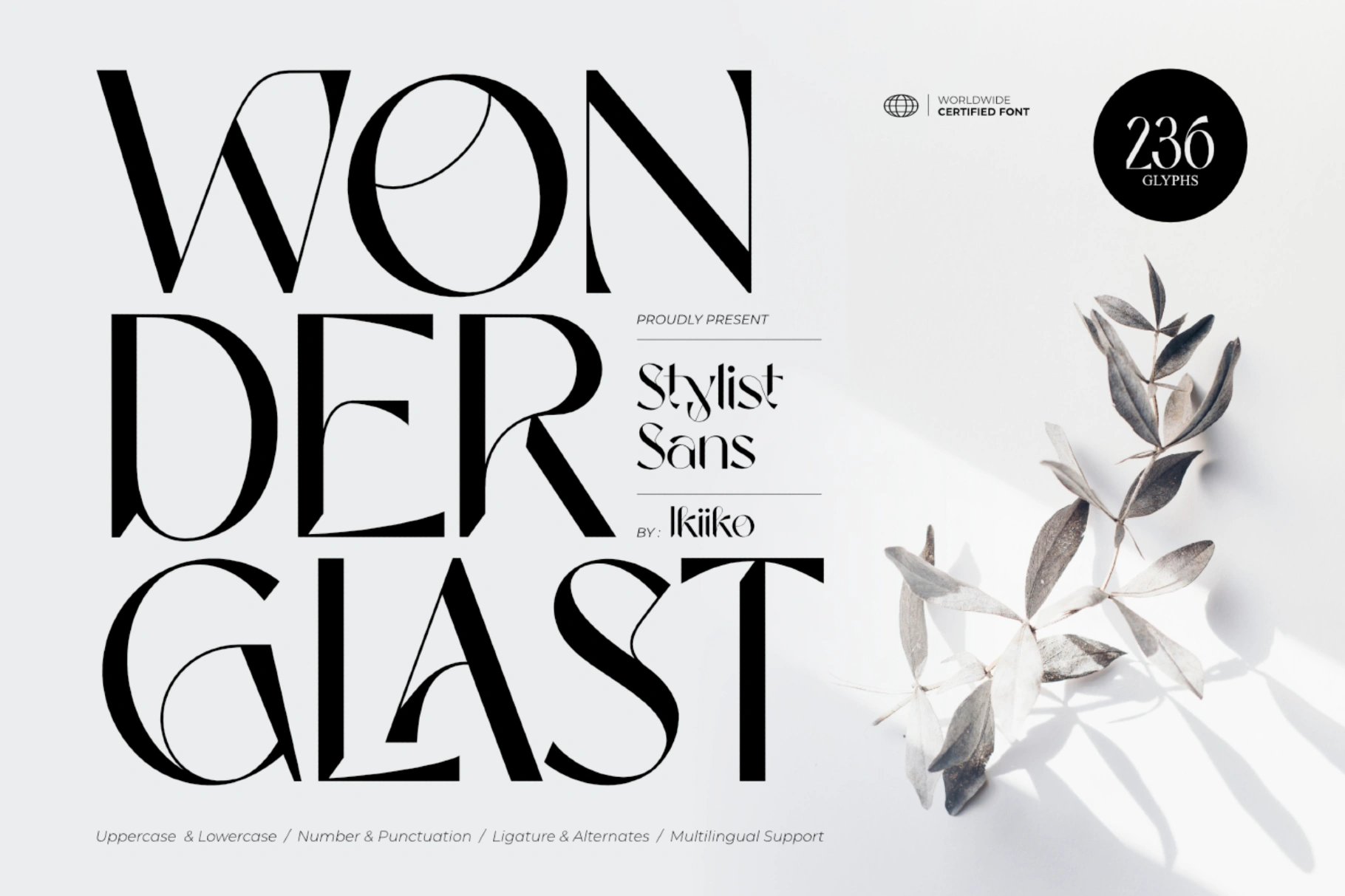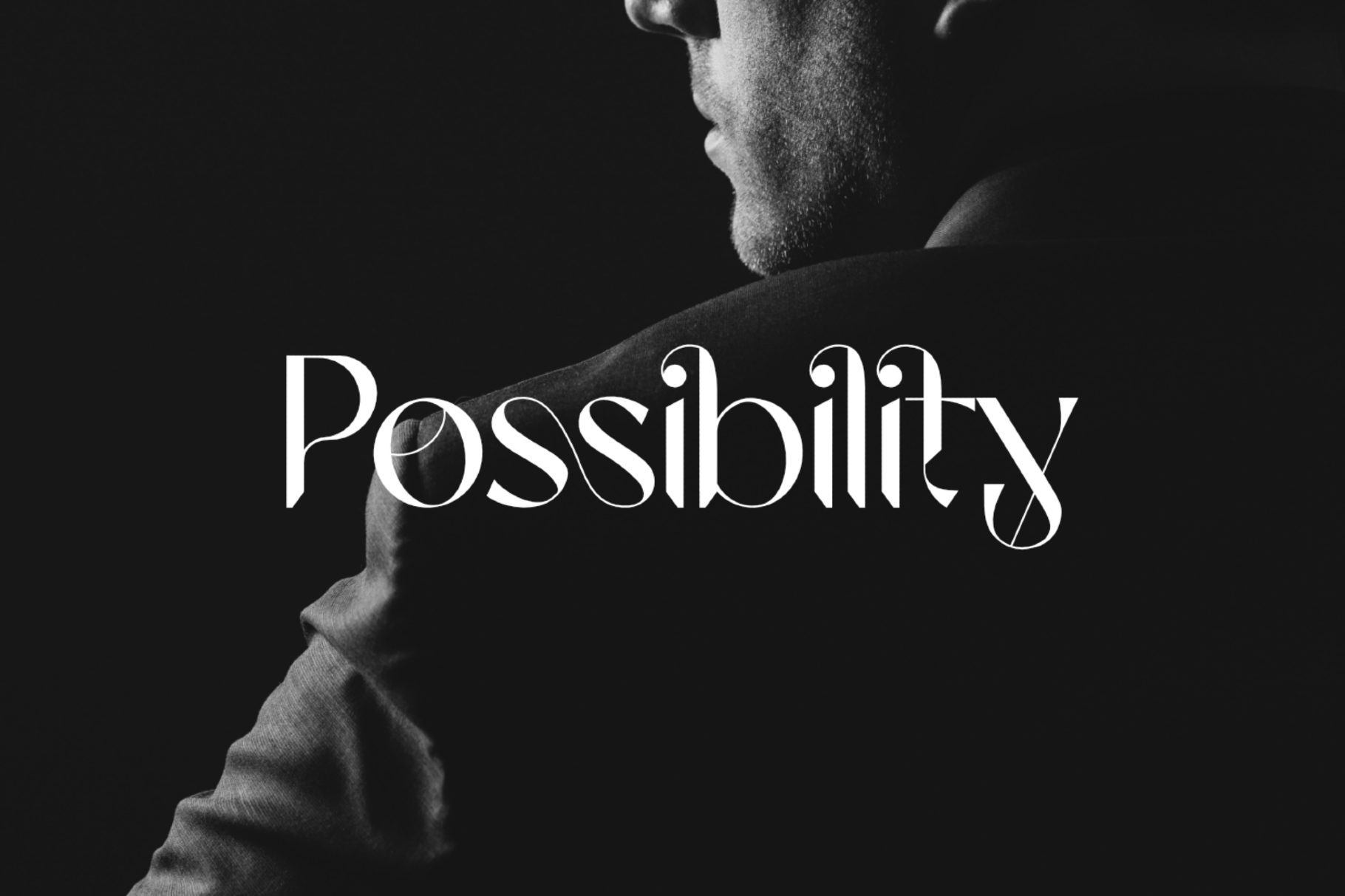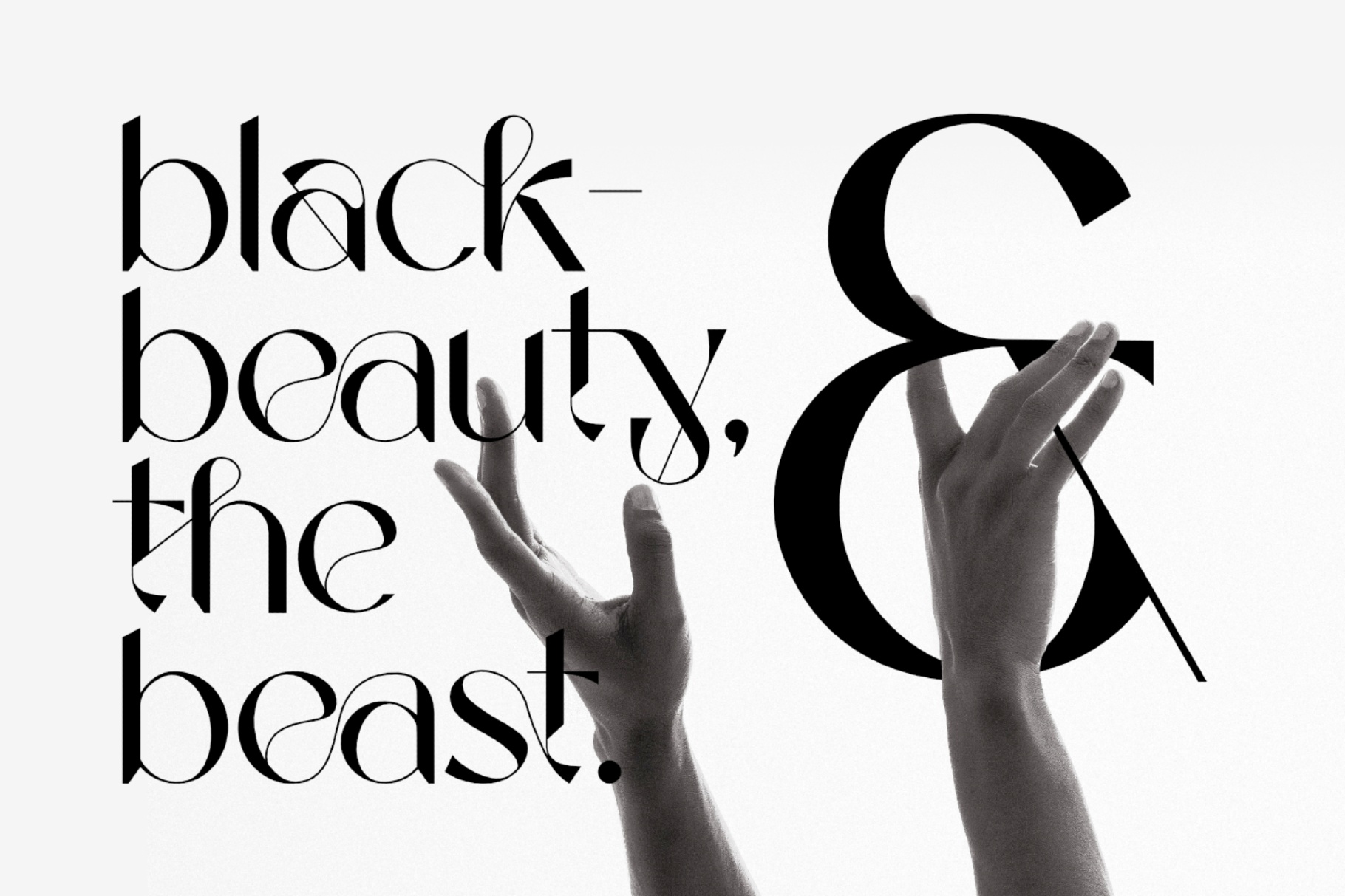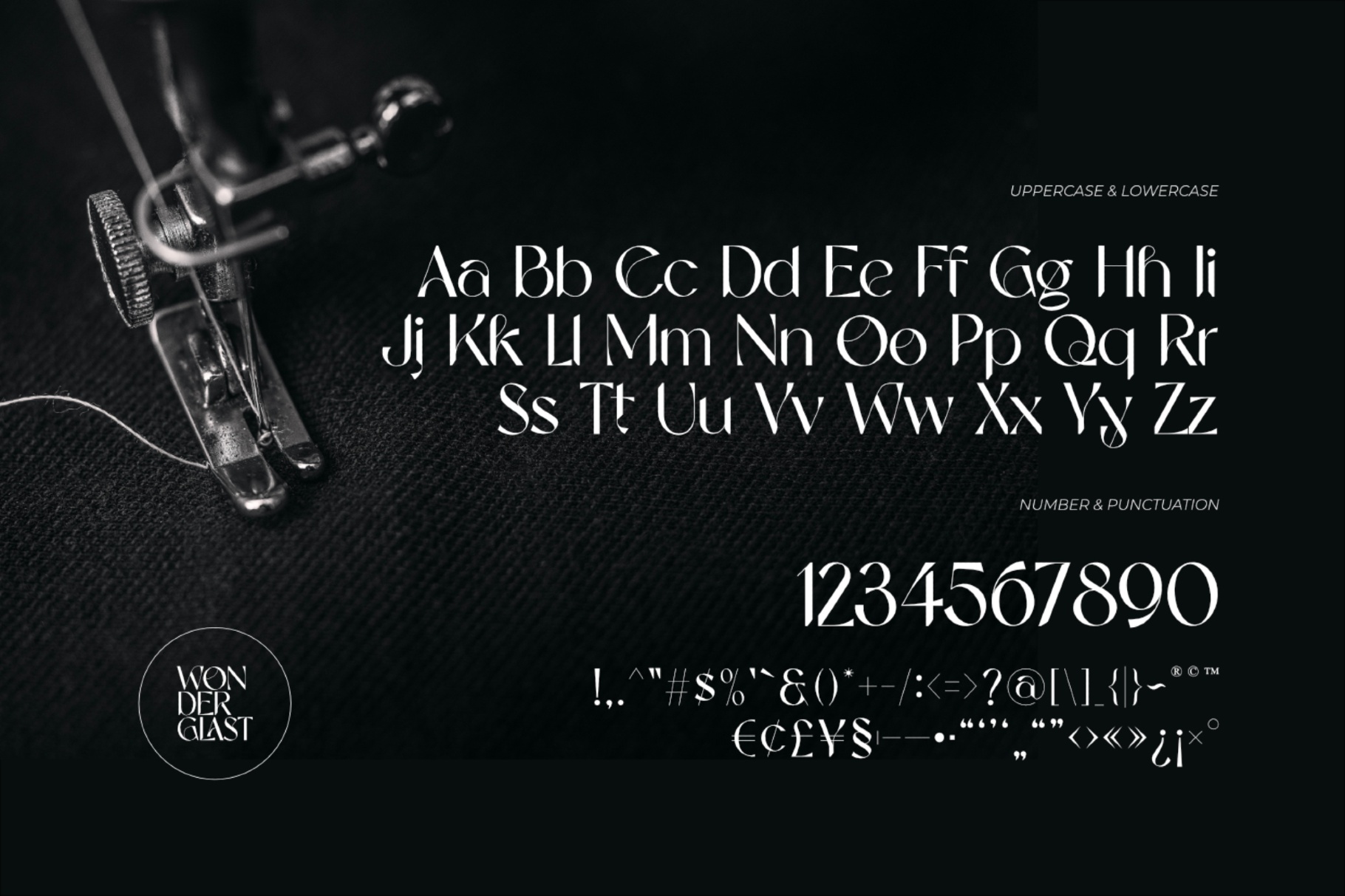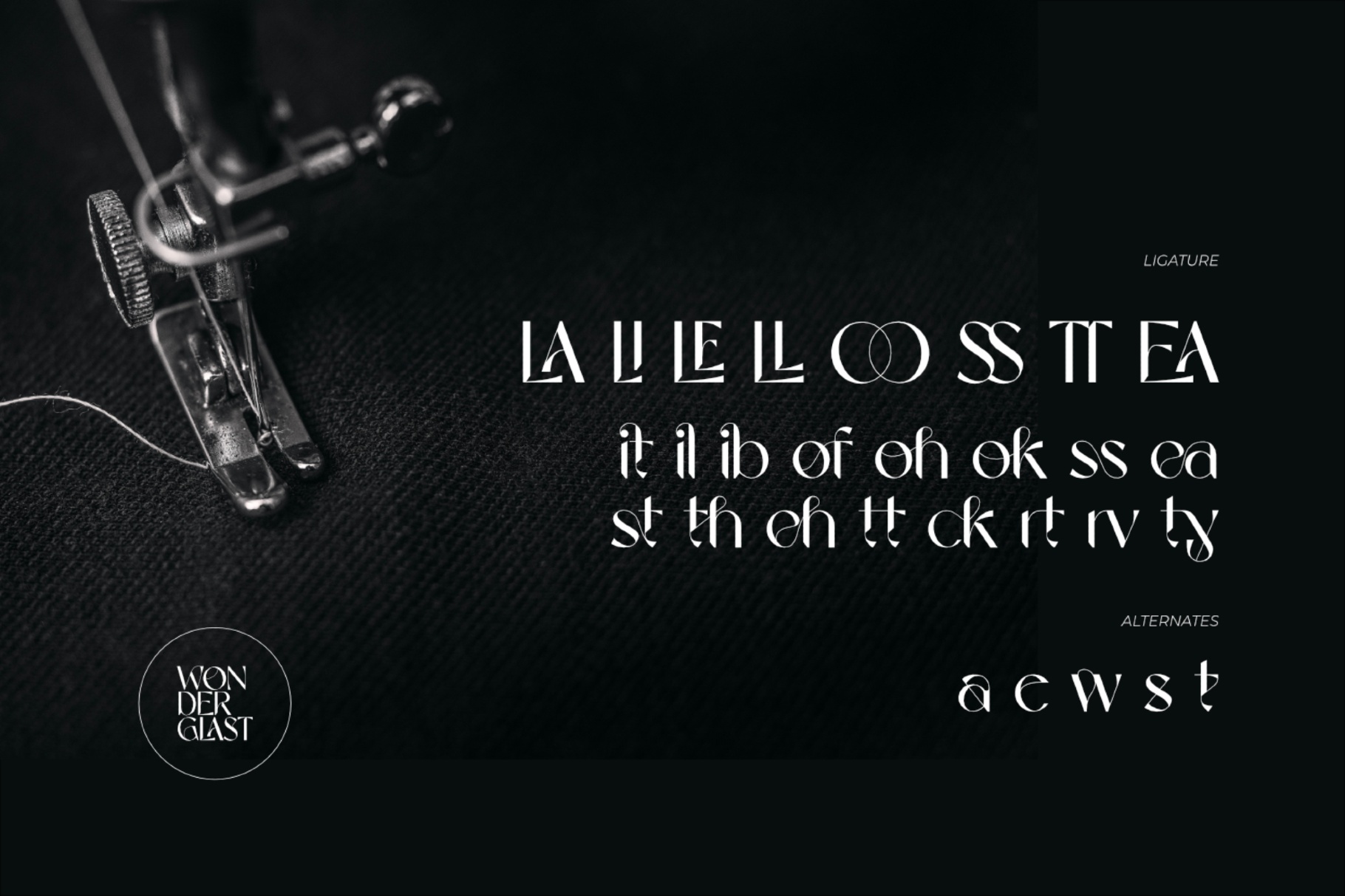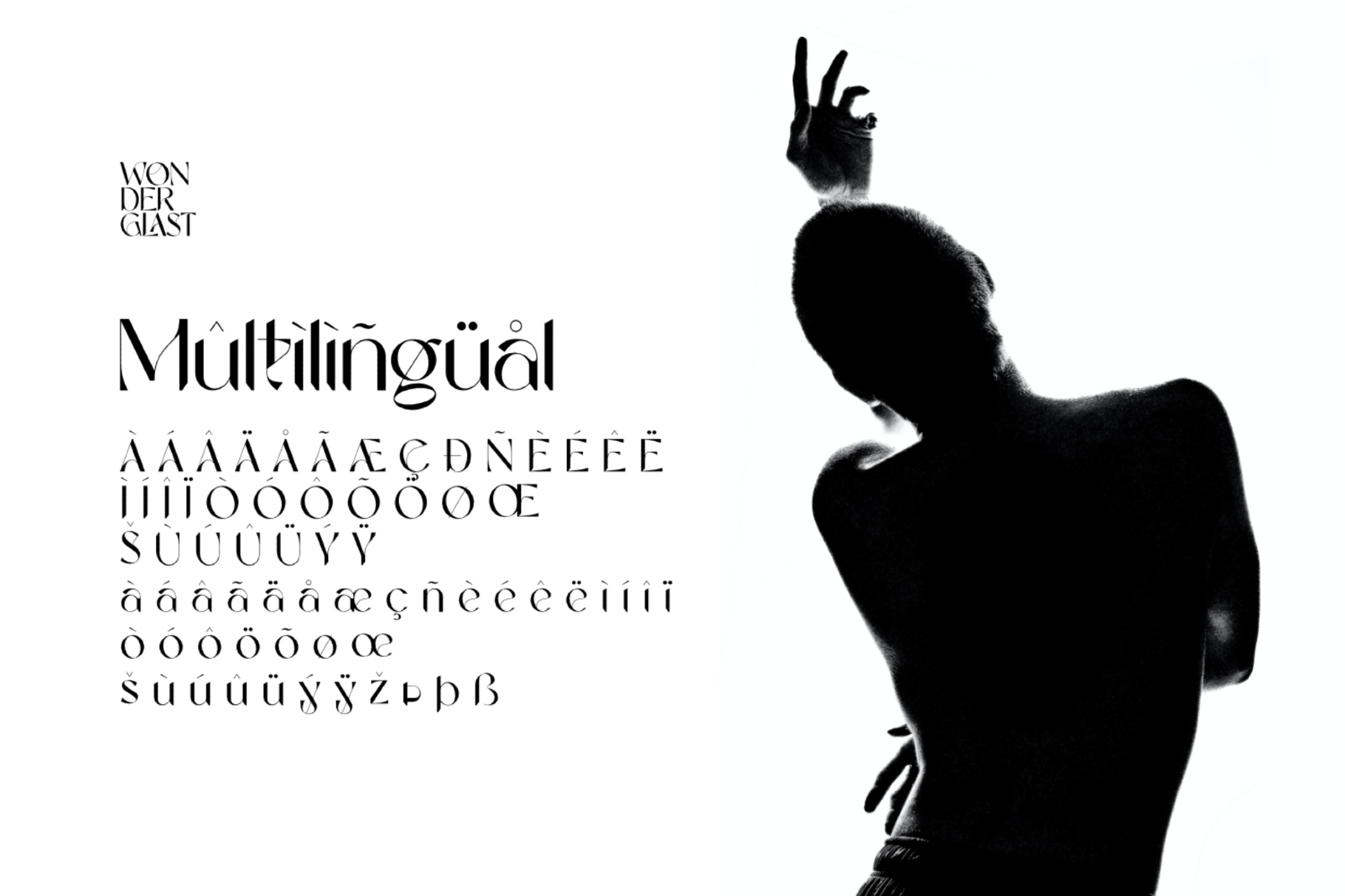
Wonderglast - Stylist Sans
Wonderglast is a chic sans serif typeface with a seductively avant-garde vibe. This typeface effortlessly captures the spirit of elegance and sophistication thanks to its simple lines and contemporary design. Its modern, minimalist design lends an air of refinement to any project, making fashion-related projects the ideal fit for it.
Wonderglast's letters have a sense of fluidity that makes them flow across the page and produce a pleasing visual effect. Its lack of serifs gives it a modern appearance, and its carefully constructed curves and proportionate design add to its allure.
This typeface is perfect for an elegant logo, branding, fashion brand, luxury brand, layout magazine, beauty product, packaging product, quotes, or simply as a stylish text overlay to any background image.
- Ligature & Alternates